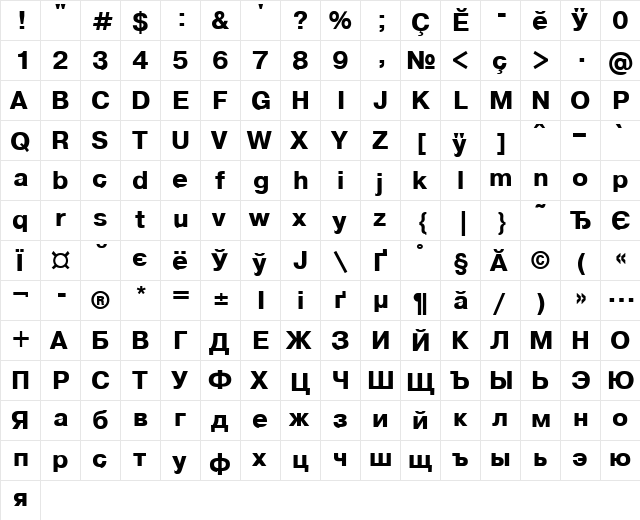
Pragmatica BoldChvFVI Bold
Design Context for Pragmatica BoldChvFVI Typeface
Pragmatica BoldChvFVI offers clean, dependable letterforms without strong stylistic allegiance, making it a practical choice for designers who need flexibility. Its bold stroke weight gives it real presence on the page.